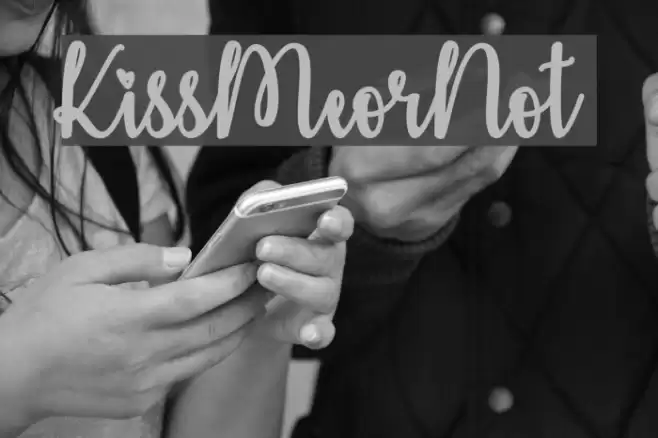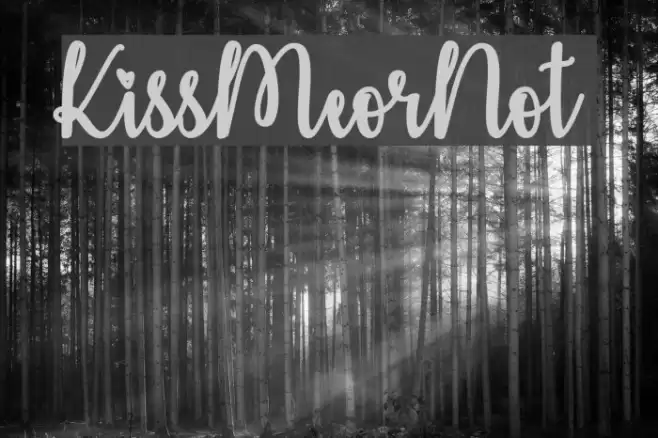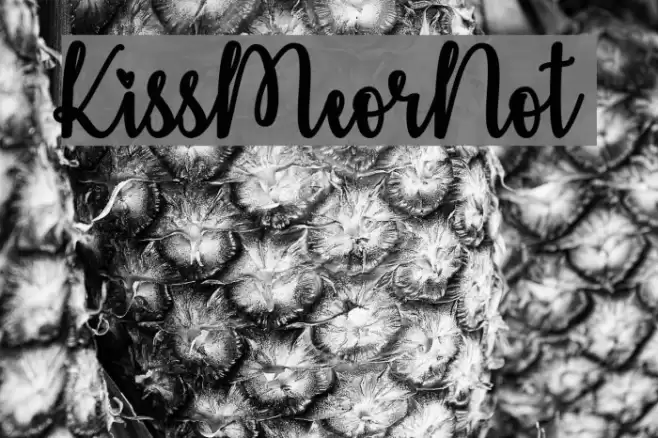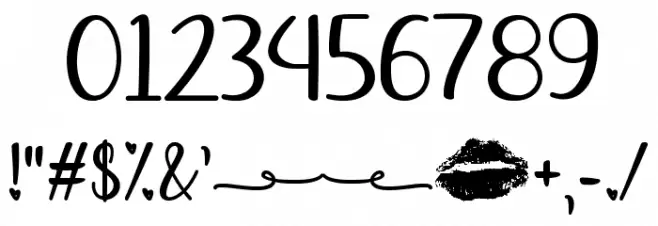
KissMeorNot Font
KissMeorNot Description
This font exudes a playful and romantic vibe with its flowing, cursive script. The letters are elegantly connected, creating a sense of movement and fluidity. The uppercase letters are bold and expressive, while the lowercase letters maintain a consistent style with charming loops and curves. Special characters like the heart-shaped dots over the 'i' add a whimsical touch. The numbers are clear and maintain the same playful style, making them easily readable. This font is perfect for projects that require a personal, handwritten feel, such as wedding invitations, greeting cards, or romantic branding.
A playful, romantic cursive script with whimsical details from Script fonts.
- Proposed Projects: Ideal for wedding invitations, greeting cards, romantic branding, and personal stationery.
- Use Case: Logos, Headlines, Invitations